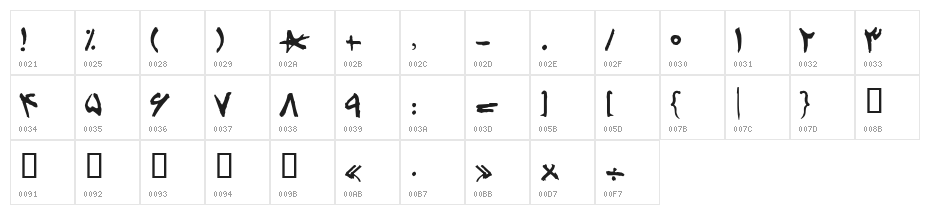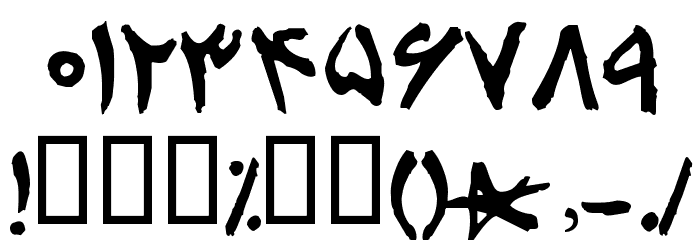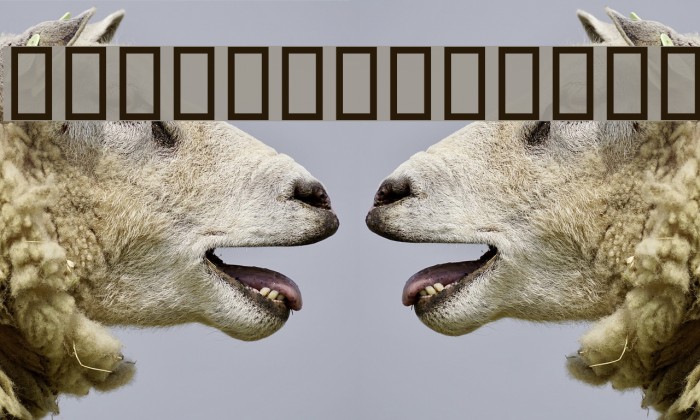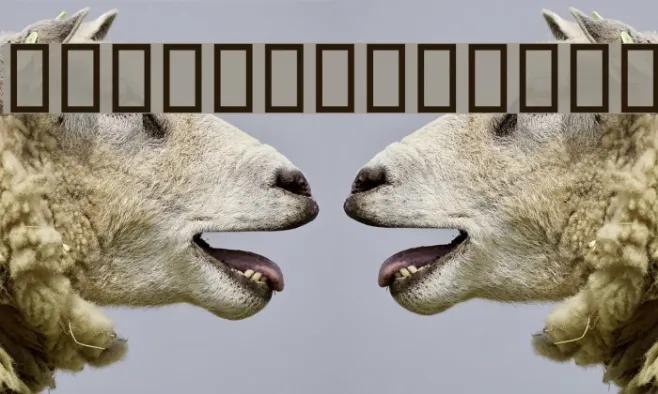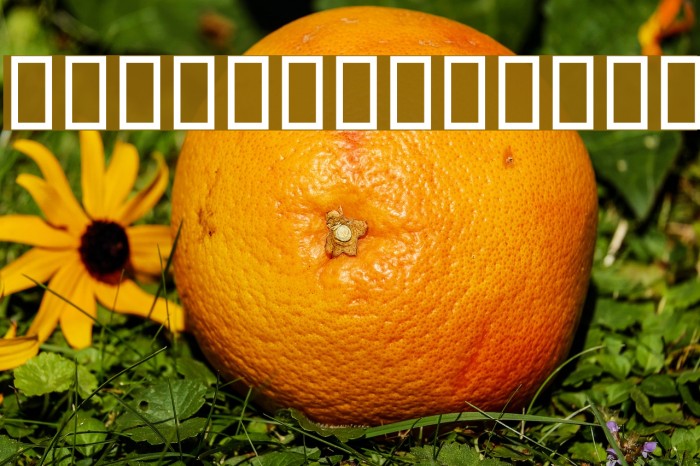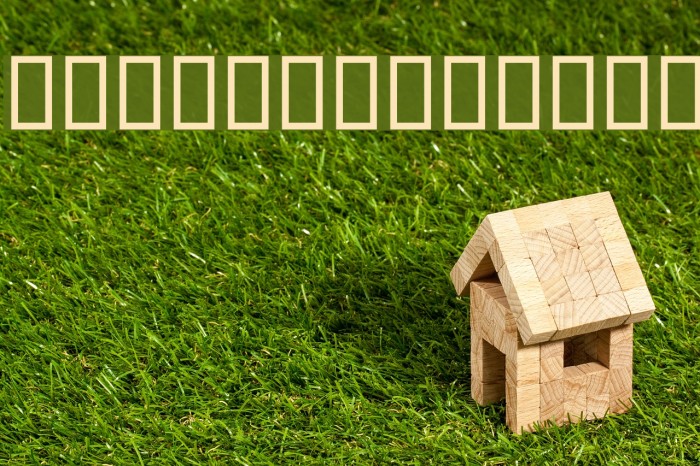
Shang VI Font
Shang VI Description
This font features a highly stylized and artistic design, characterized by its unique and abstract shapes. The characters exhibit a hand-drawn appearance with irregular strokes and varying thickness, giving it a dynamic and expressive feel. The numerals and special characters maintain the same artistic flair, ensuring consistency across the entire set. Its distinctiveness makes it stand out, offering a creative and unconventional look that can add a unique touch to any project.
| Use Case | Logos, Posters, Artistic Branding |
| Proposed Projects | Ideal for creative projects such as album covers, posters, or branding for artistic ventures. |